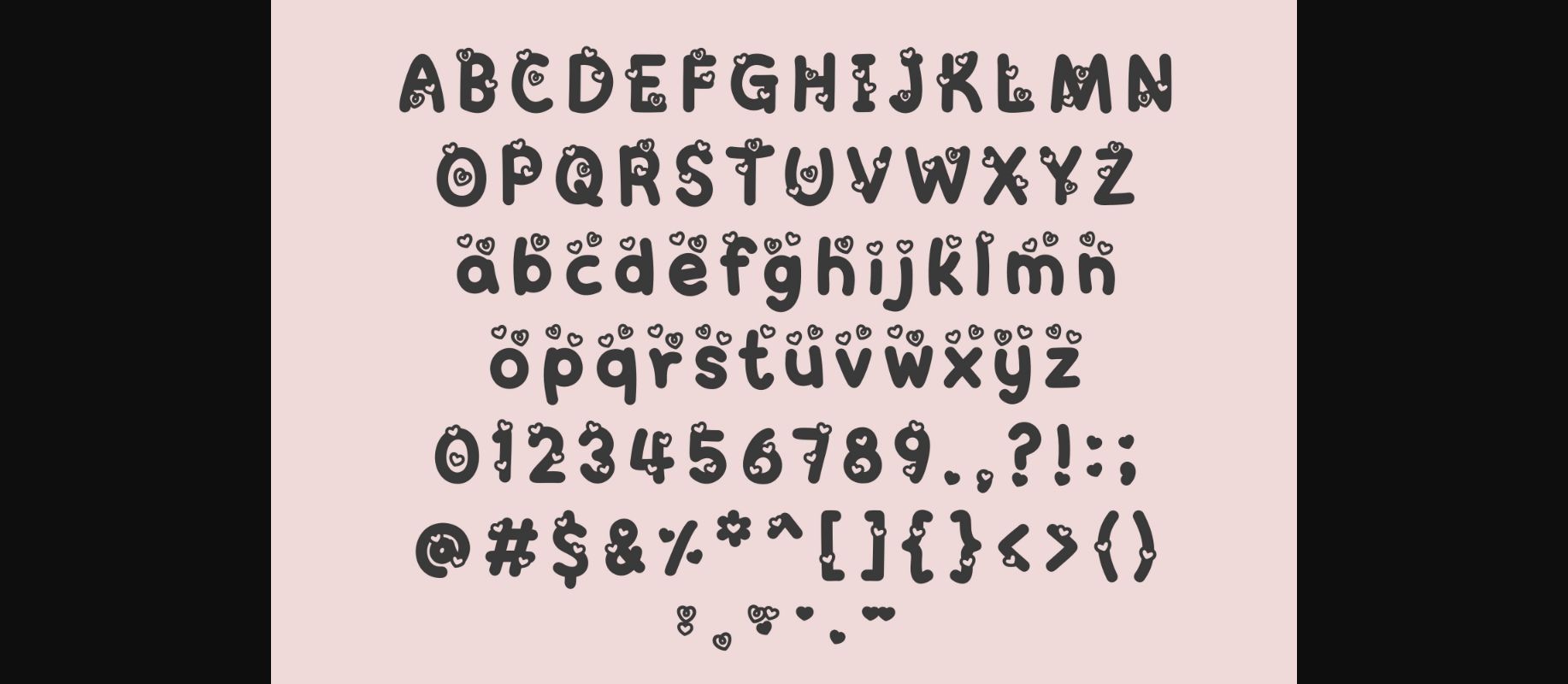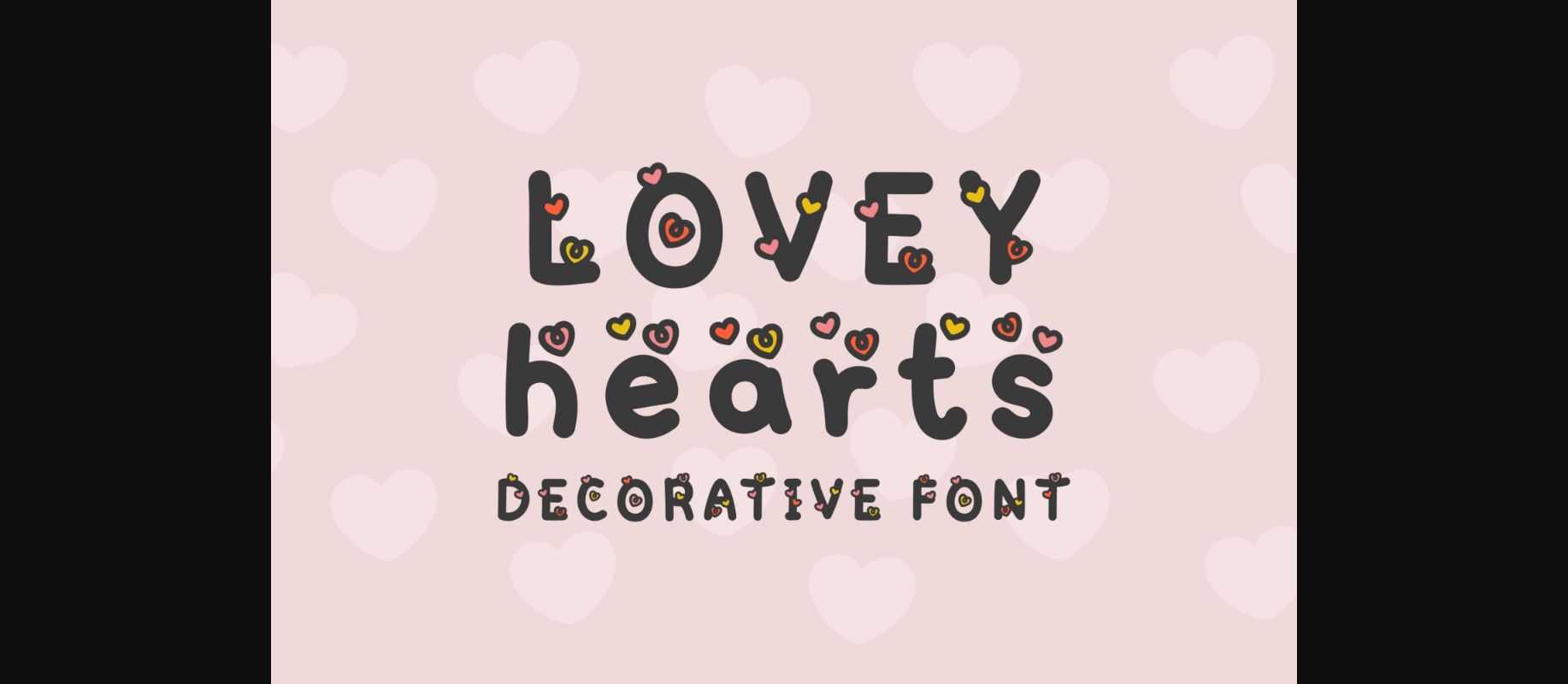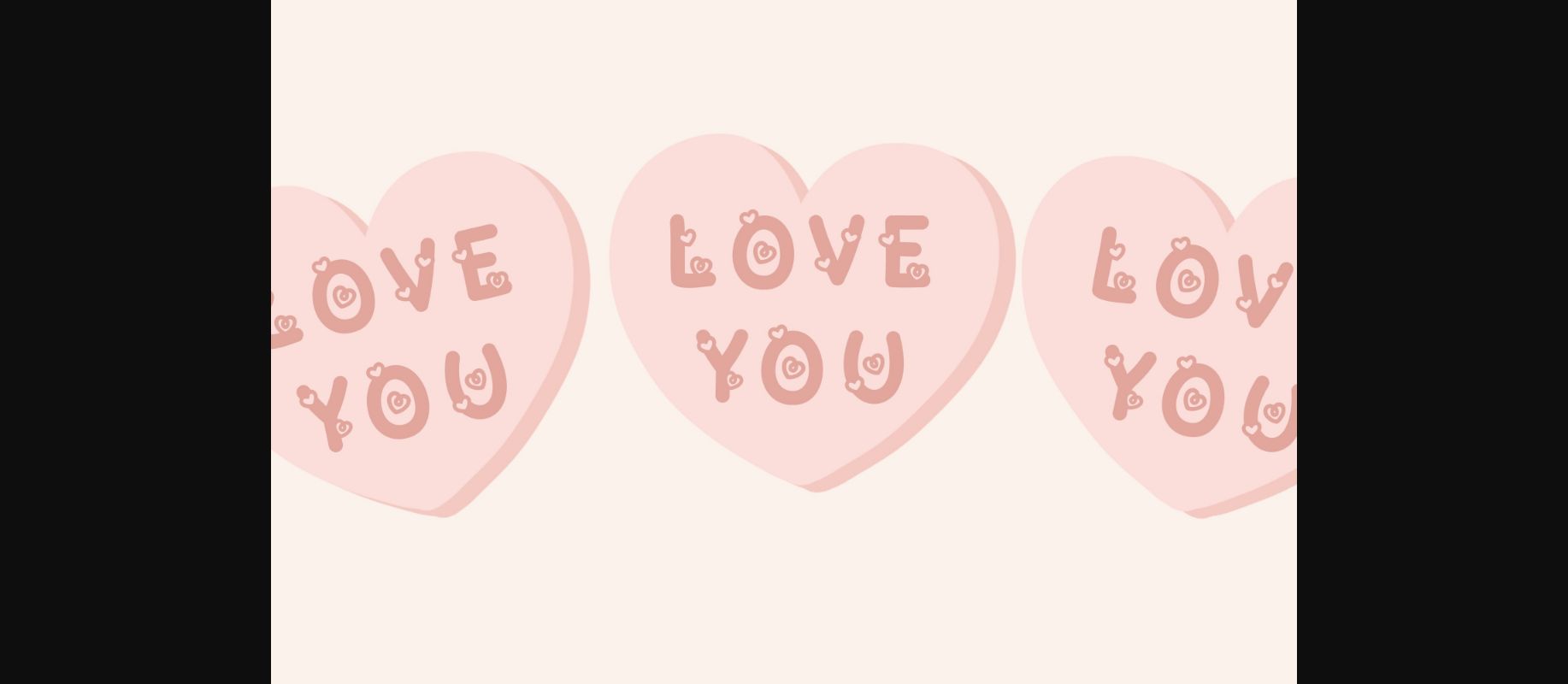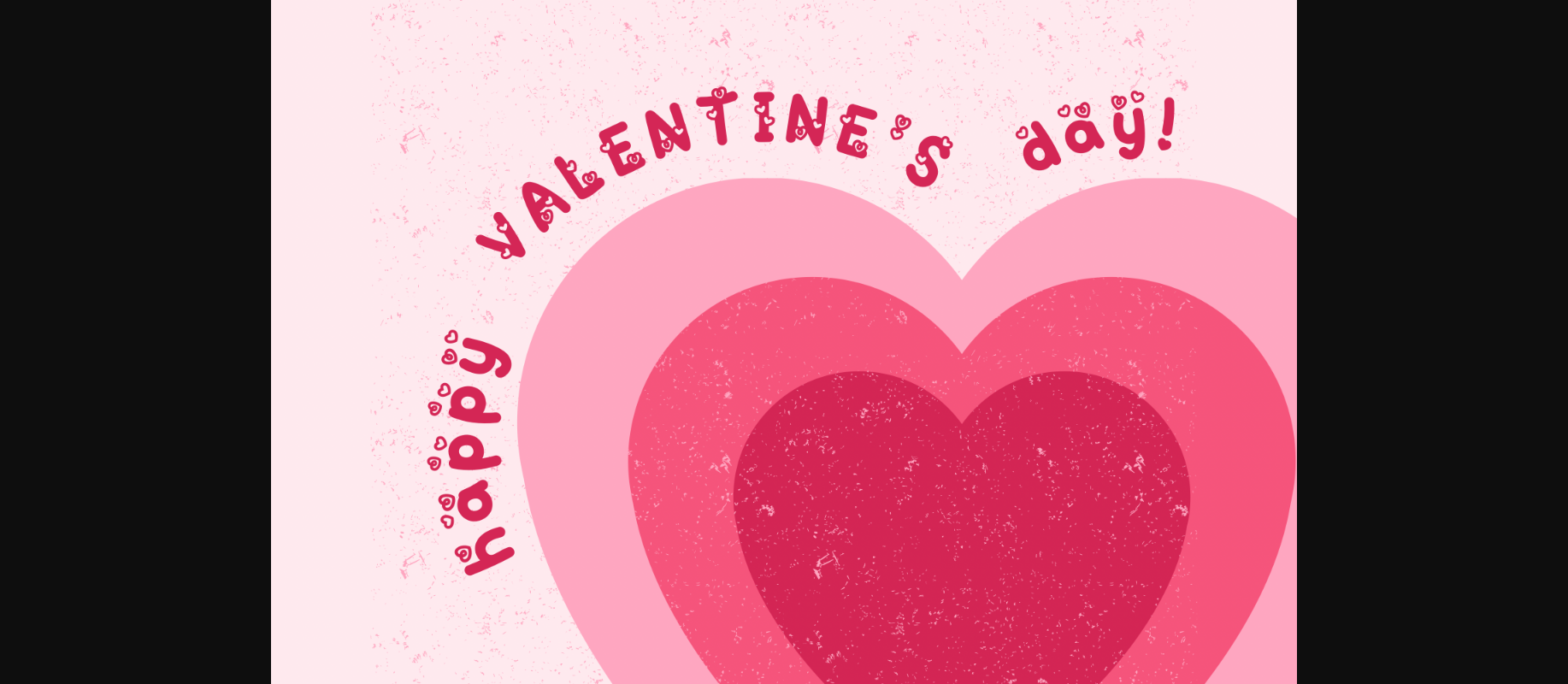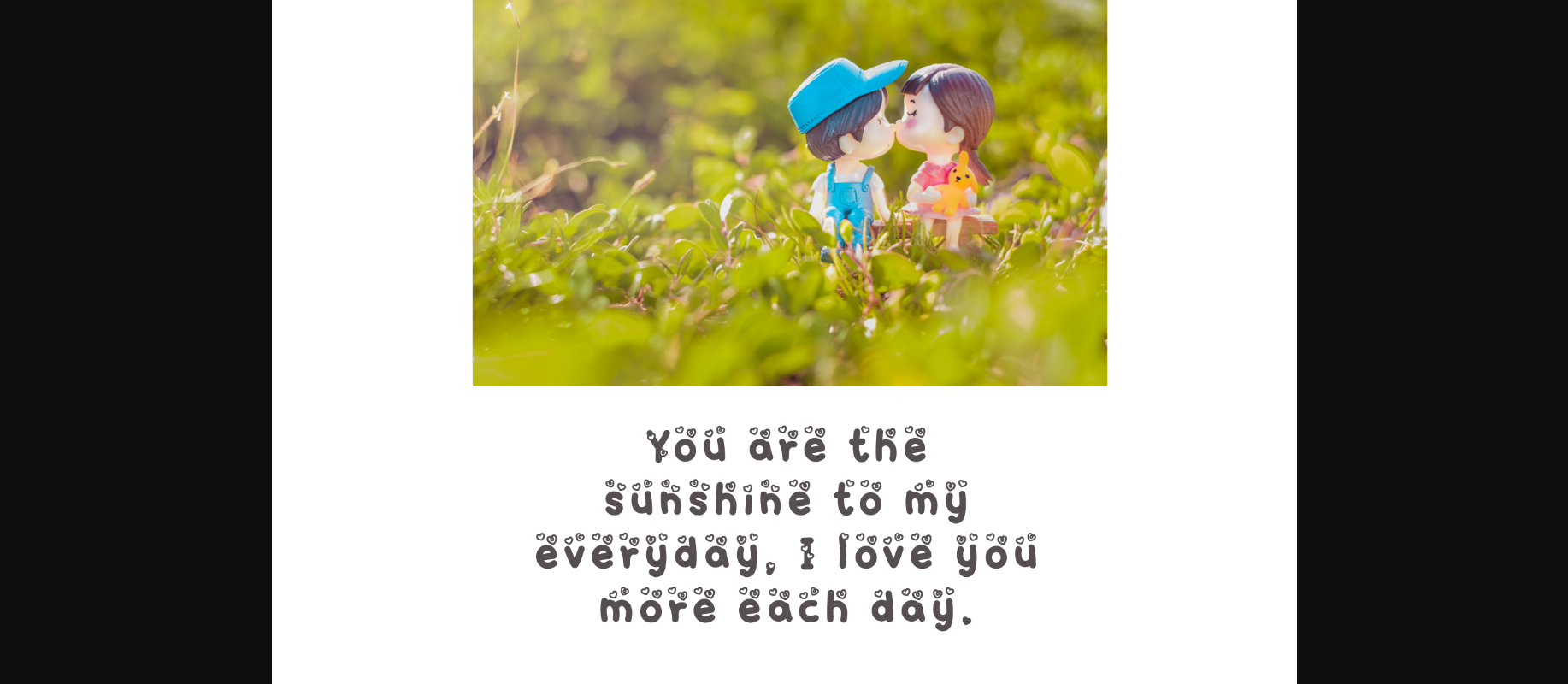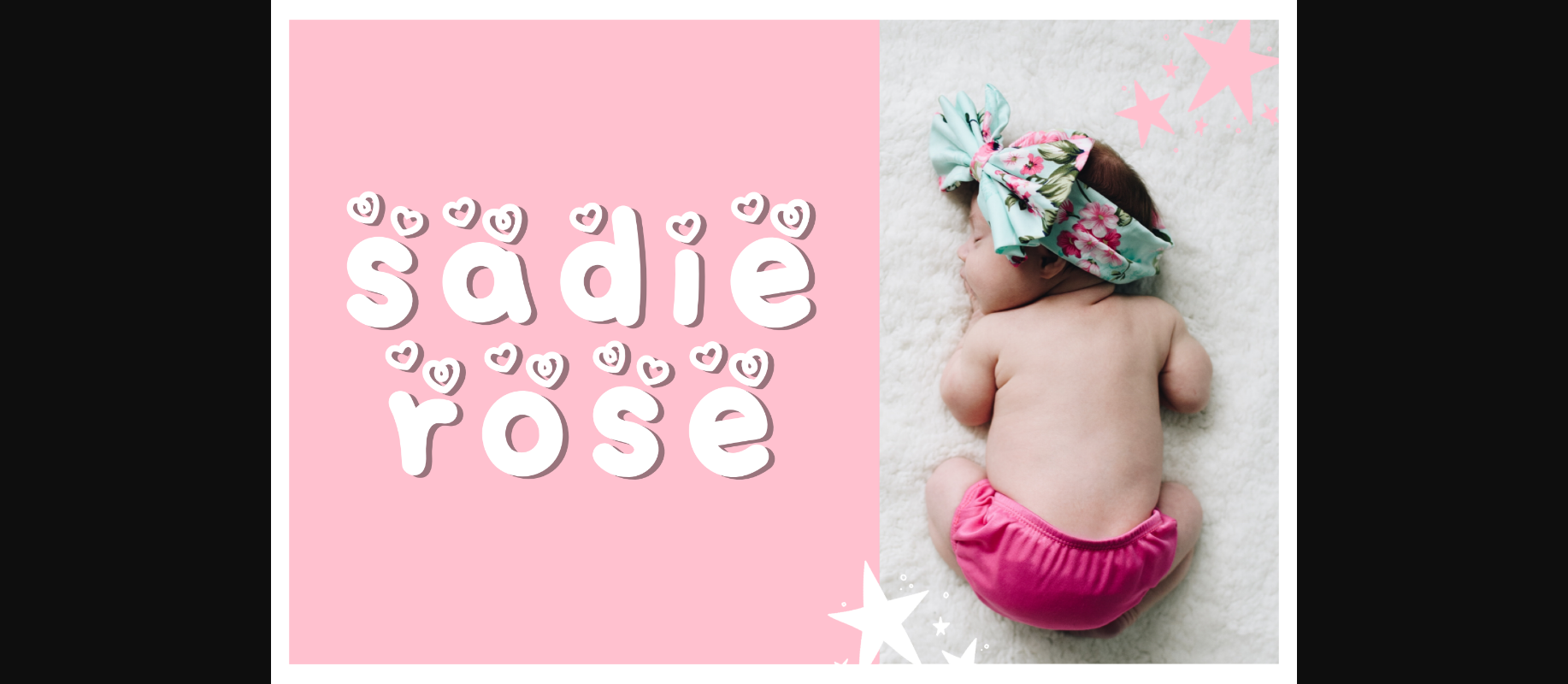
About Lovey Hearts Font
Lovey Hearts Decorative Font is a cute, fun, hand-drawn font with cute hearts decorations. You can use this font in various projects – blog posts, logos, branding, digital planners, invitations, greeting cards, planners, photo albums, decorations, and much more.
(Heart decorations have no color, you have to fill colors)